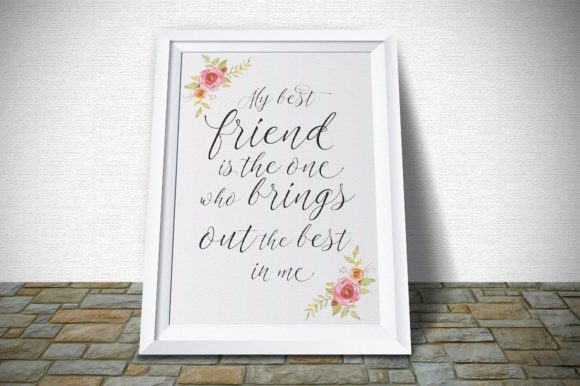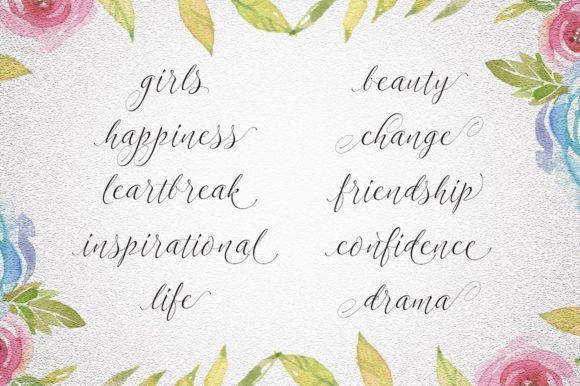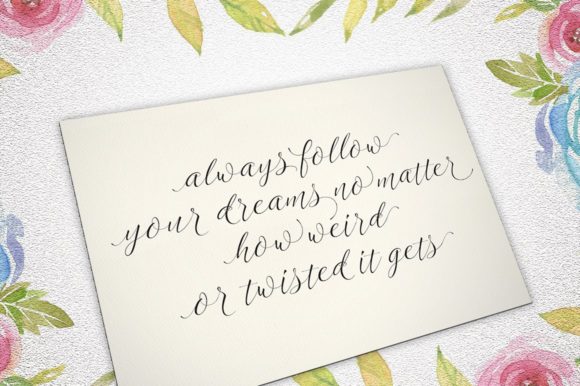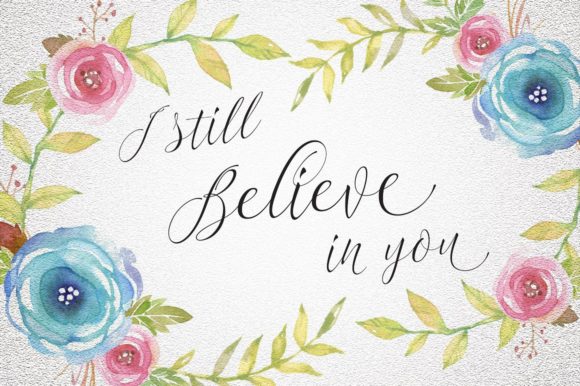
Introduction to Letuce Font
Imagine you’re brainstorming ideas for your next creative project, and you stumble upon the perfect font that elevates your design to the next level. For many designers, this moment is a game-changer. And that’s exactly what happens when you discover the Letuce Font – a modern calligraphy script font that adds a touch of elegance to any project.
Whether you’re designing an invitation, poster, logo, or book cover, the Letuce Font is the perfect design resource to give your work a stylish look. Its high-quality features and versatility make it an invaluable addition to any designer’s toolkit. Plus, with a transparent background, you can easily customize it to fit your design needs.
Key Features of Letuce Font
- High-quality, professional font design ideal for creative projects.
- Transparent background and seamless integration with various design resources.
- Features a unique, modern aesthetic, perfect for adding a touch of sophistication to your designs.
- Supports multiple languages, making it a versatile design resource for global projects.
Honest Review: Letuce Font
As a designer, I’m always on the lookout for high-quality design resources that can elevate my creative projects. Letuce Font caught my attention, and I decided to give it a try. Here’s my honest review.
- High-quality glyphs and smooth lines make it perfect for body text and headings.
- The transparent background allows for seamless integration with other design elements.
- The font is highly customizable, allowing for easy adjustments to size, color, and style.
- The font is limited in its character set, making it less suitable for languages with complex scripts.
- The font may not be ideal for small text sizes, as the lines can become too thin and difficult to read.
Overall, I’m impressed with Letuce Font’s potential to enhance my creative projects. While it has some limitations, its high-quality design and transparent background make it a valuable design resource. I’d recommend it to designers looking for a free and versatile font.
To get the most out of Letuce Font, use it in combination with other design elements to create a cohesive and visually appealing design. Experiment with different font sizes, colors, and styles to add depth and interest to your project. Consider using a transparent background to create a more modern and sleek look.
Letuce Font is ideal for use in a variety of creative projects, including logos, business cards, brochures, and social media graphics. It’s also a great choice for use in presentations, such as PowerPoint or Keynote, to add a touch of sophistication and style.